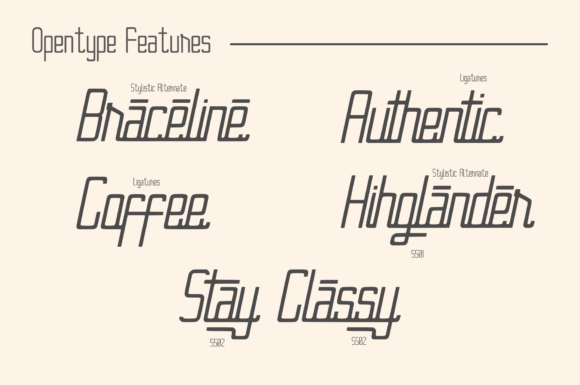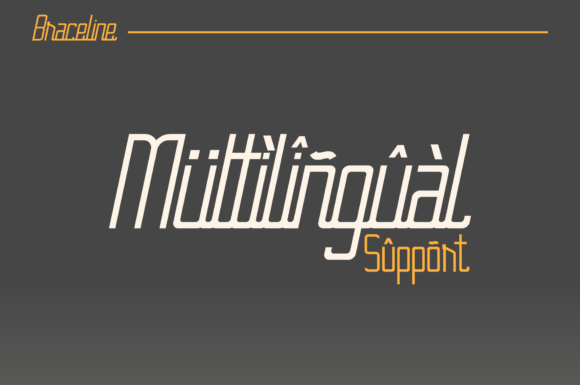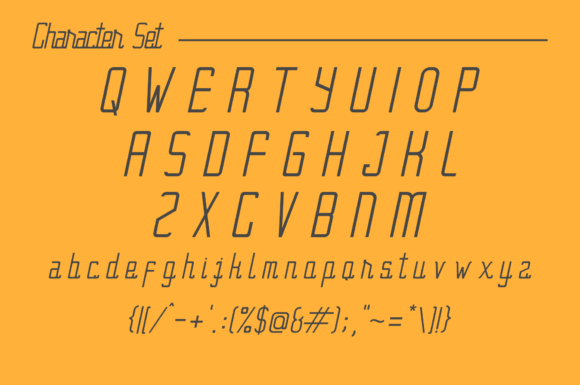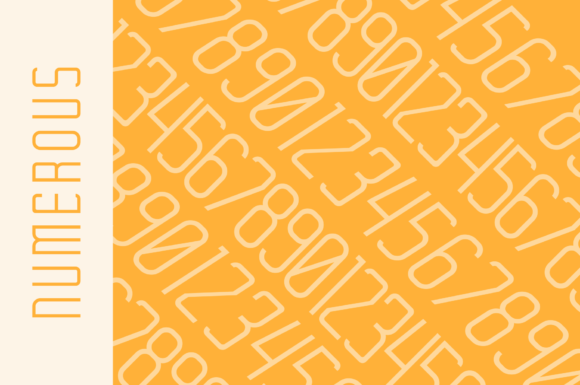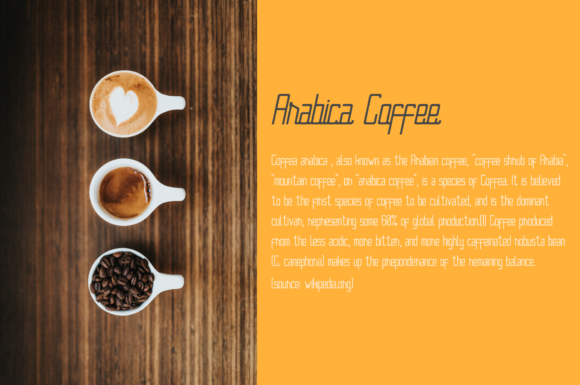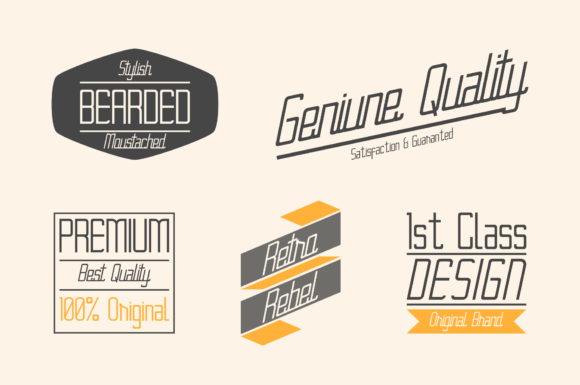
Braceline Duo Font: Elevate Your Designs with Versatility and Readability
In the realm of typography, a font duo can be a game-changer for designers and crafters looking to add a touch of elegance and professionalism to their projects. The Braceline Duo Font stands out as a remarkable pairing, offering a script and a sans version that together provide unparalleled versatility. This striking font duo is not just about aesthetics; it’s also designed with great readability in mind, making it perfect for a wide range of applications.
Understanding the Braceline Duo Font
The Braceline Duo Font consists of two complementary fonts: a beautiful script font and a clean sans font. This combination allows designers to play with contrasts, creating visually appealing and dynamic designs. Whether you’re working on logos, articles, websites, pamphlets, packages, or any other project, the Braceline Duo Font offers the flexibility to adapt to any style or theme.
Key Features of the Braceline Duo Font
- Readability: One of the standout features of the Braceline Duo Font is its excellent readability. Both the script and sans versions are crafted to ensure that your text is easy to read, even at smaller sizes. This makes it an ideal choice for body text in articles, websites, and other long-form content.
- Versatility: The combination of a script and a sans font within the Braceline Duo Font allows for endless creative possibilities. Use the script font for headings or to add a personal touch, and the sans font for body text or to maintain a clean and modern look.
- Elegance and Professionalism: The Braceline Duo Font exudes elegance and professionalism. The script version adds a touch of sophistication and charm, while the sans version keeps your design clean and contemporary.
Applications of the Braceline Duo Font
The Braceline Duo Font’s versatility makes it suitable for a myriad of design projects. Here are some of the areas where this font duo truly shines:
- Logos: Create a memorable brand identity with the Braceline Duo Font. The script version can add a unique flair, while the sans version can offer a straightforward and modern approach.
- Articles and Blogs: Enhance the readability and aesthetic appeal of your articles and blog posts with this font duo. The contrast between the script headings and sans body text can make your content more engaging.
- Websites: Improve your website’s typography with the Braceline Duo Font. Its readability and elegance can elevate the user experience, making your site more inviting and professional.
- Pamphlets and Brochures: For print materials, the Braceline Duo Font offers a sophisticated look that can help your pamphlets and brochures stand out.
- Packages: Add a touch of elegance to product packaging with this versatile font duo. It’s perfect for labels, branding, and instructional materials.
Tips for Using the Braceline Duo Font
To get the most out of the Braceline Duo Font, consider the following tips:
- Mix and Match: Don’t be afraid to combine the script and sans fonts in your designs. This contrast can add visual interest and guide the reader’s eye through your content.
- Consider Hierarchy: Use the script font for headings or key messages and the sans font for body text. This creates a clear hierarchy and enhances readability.
- Play with Sizes: Experiment with different sizes to emphasize certain elements of your design. Larger script headings can draw attention, while smaller sans text keeps details clear.
The Braceline Duo Font is a powerful tool for designers and crafters looking to elevate their projects with high-quality typography. Its combination of readability, versatility, and elegance makes it an excellent choice for a wide range of applications. By incorporating the Braceline Duo Font into your designs, you can create visually appealing, professional, and engaging content that stands out in any medium.